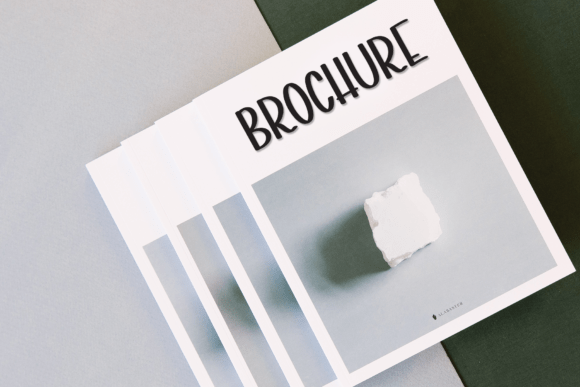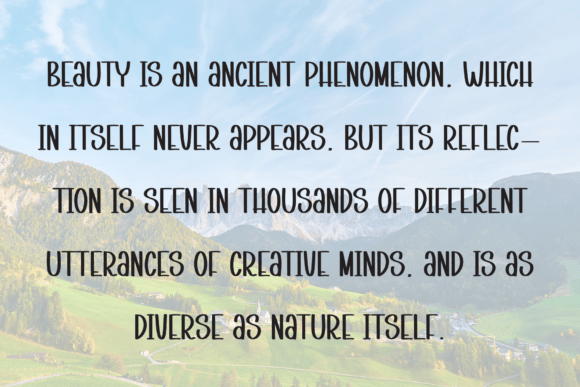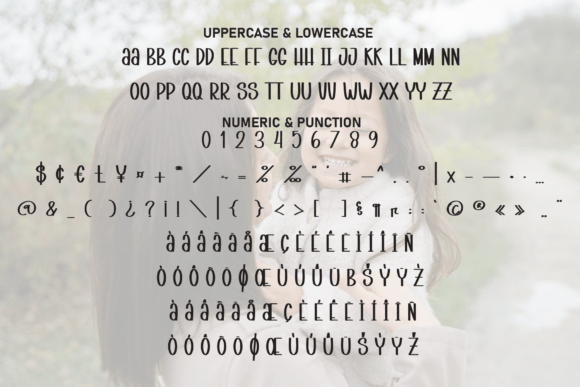
Hello Daughter Font: Adding a Touch of Whimsy to Your Designs
Are you looking for a font that can add a dash of personality to your designs? Look no further than the Hello Daughter Font, a delightful and agreeable handwritten display font that is sure to captivate your audience. In this article, we’ll dive into the world of Sweet and Friendly, a charming font that brings a playful yet refined touch to your text.
The Charm of Handwritten Scripts
Handwritten scripts have always been a popular choice for designers and crafters, and for good reason. They add a personal touch to any design, making it feel more approachable and relatable. The Hello Daughter Font is no exception, with its sweet and friendly curves that evoke a sense of warmth and friendliness.
This enchanting font is perfect for a variety of design projects, from wedding invitations to creatively crafted cards. Its unique charm and character make it an excellent choice for designers who want to add a touch of whimsy to their work.
Features of the Hello Daughter Font
The Hello Daughter Font, also known as Sweet and Friendly, boasts a range of features that make it an excellent choice for designers. Some of its key features include:
- Playful yet refined curves: The font’s curves are carefully crafted to infuse an air of fun and playfulness into your designs, while maintaining a level of sophistication and elegance.
- Handwritten script: The font’s handwritten script gives it a personal and approachable feel, making it perfect for designs that require a touch of warmth and personality.
- Delightful flavor: The font’s unique charm and character add a delightful flavor to your text, making it stand out from the crowd.
Uses for the Hello Daughter Font
The Hello Daughter Font is a versatile font that can be used for a variety of design projects, including:
- Wedding invitations: The font’s sweet and friendly curves make it an excellent choice for wedding invitations, adding a touch of romance and whimsy to your designs.
- Creatively crafted cards: The font’s playful yet refined curves make it perfect for creatively crafted cards, such as birthday cards, thank-you cards, and more.
- Social media graphics: The font’s unique charm and character make it an excellent choice for social media graphics, adding a touch of personality to your posts and stories.
Tips for Using the Hello Daughter Font
To get the most out of the Hello Daughter Font, here are a few tips to keep in mind:
- Use it sparingly: While the font is delightful and agreeable, it can be overwhelming if used excessively. Use it sparingly to add a touch of whimsy to your designs.
- Pair it with other fonts: The Hello Daughter Font pairs well with other fonts, such as sans-serif fonts or serif fonts. Experiment with different pairings to find the one that works best for your design.
- Experiment with colors: The font’s unique charm and character can be enhanced with the right colors. Experiment with different color combinations to find the one that works best for your design.
In conclusion, the Hello Daughter Font is a delightful and agreeable handwritten display font that is sure to captivate your audience. Its sweet and friendly curves, playful yet refined touch, and unique charm and character make it an excellent choice for designers and crafters. Whether you’re creating wedding invitations, creatively crafted cards, or social media graphics, this font is sure to add a touch of whimsy and personality to your designs.